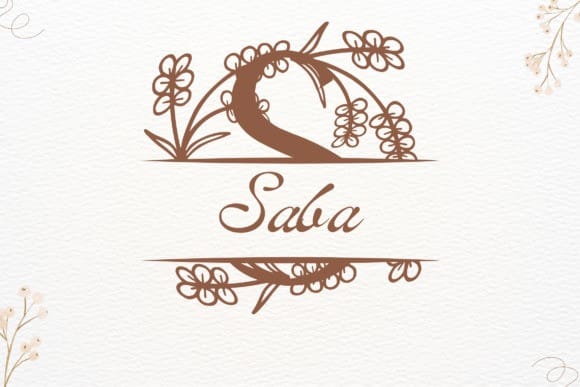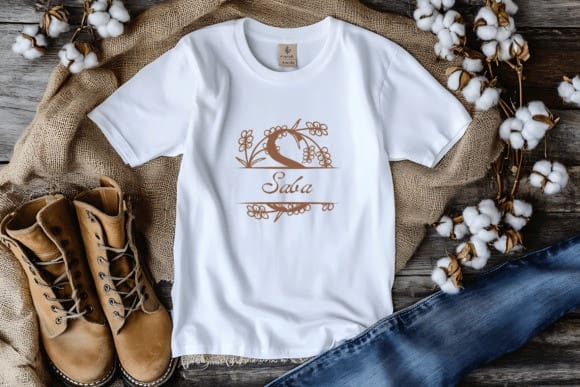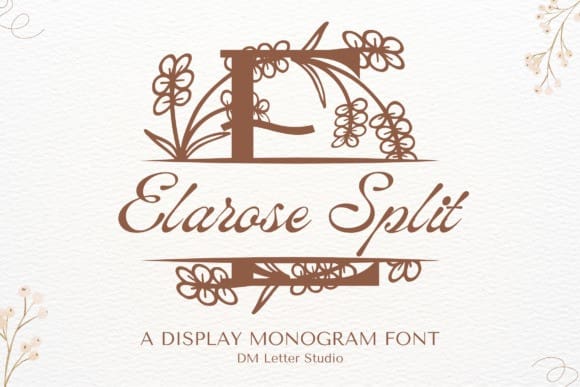
Elarose Split Monogram Font
Elarose Split Monogram Font is a elegant serif font built for clean personalization. Each uppercase letter features a clear horizontal split that lets you place names, dates, or short phrases in the center. The result is a monogram style that feels classic and modern at once, perfect for weddings, boutique branding, gifts, Cricut crafts, and premium packaging.
This split version carries the same graceful shapes as the original Elarose Monogram, then adds practical space for text. The serif forms are crisp and balanced, with gentle flourishes that read beautifully at small and large sizes. Use it for invitation suites, signage, nameplates, vinyl decals, laser engraving, embroidery, and keepsakes that call for an elegant split monogram font.
If you want a monogram that looks refined and is also simple to customize, Elarose Split Monogram is a reliable choice. It brings style and function together so your designs look considered, consistent, and ready for print or cut.